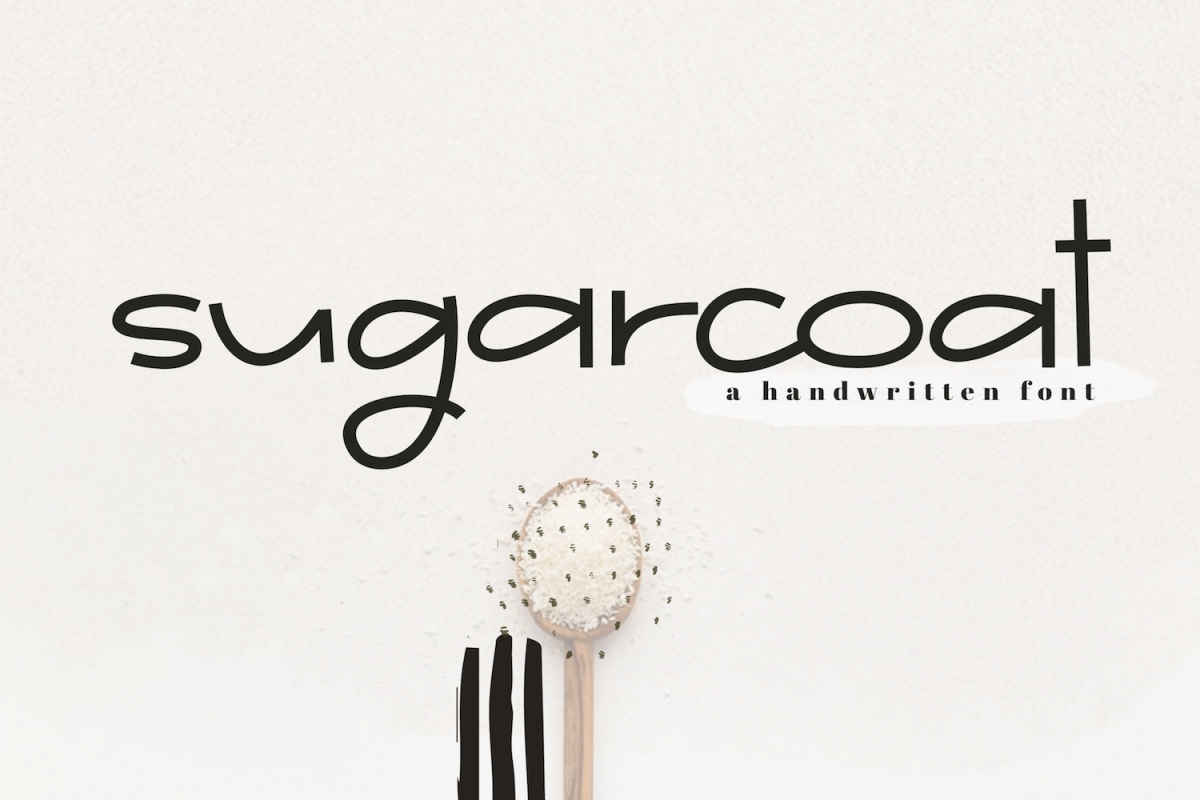
Sugarcoat - A Clean Handwritten Font
Sugarcoat
Sugarcoat is a clean font with a stretched look.
This font is perfect for quotes, headings, designs, logos, invitations and more!
This font *does* include accent characters.
Cutest handwritten sans serif, from my favorite font designer if all times! <3
Love the uniqueness of this font.